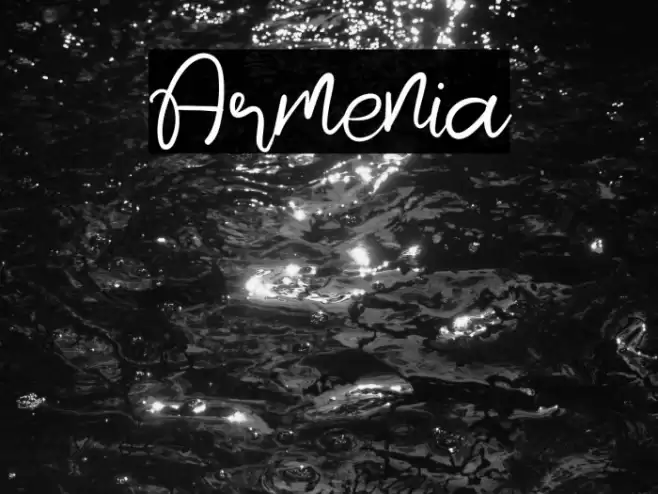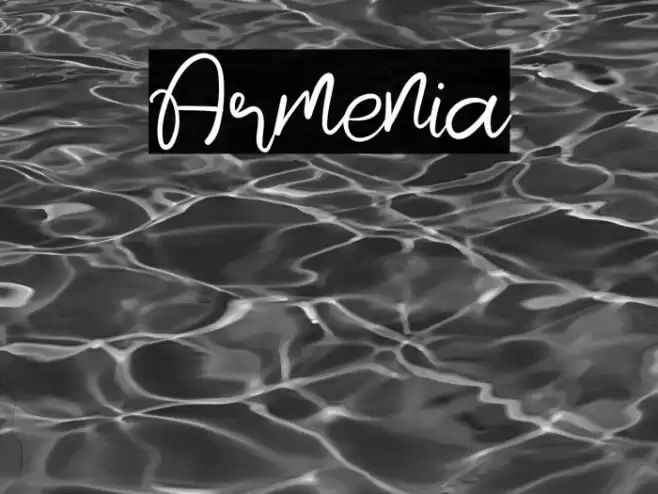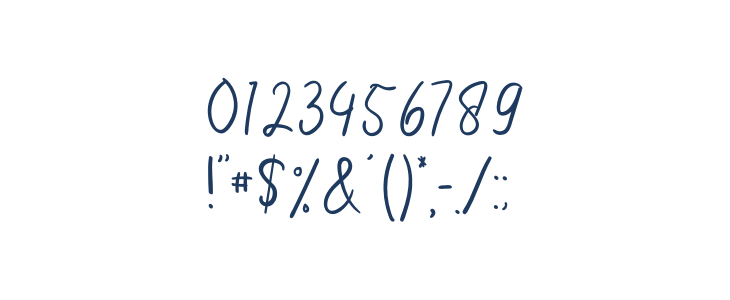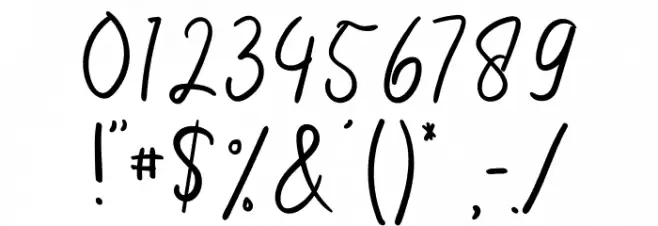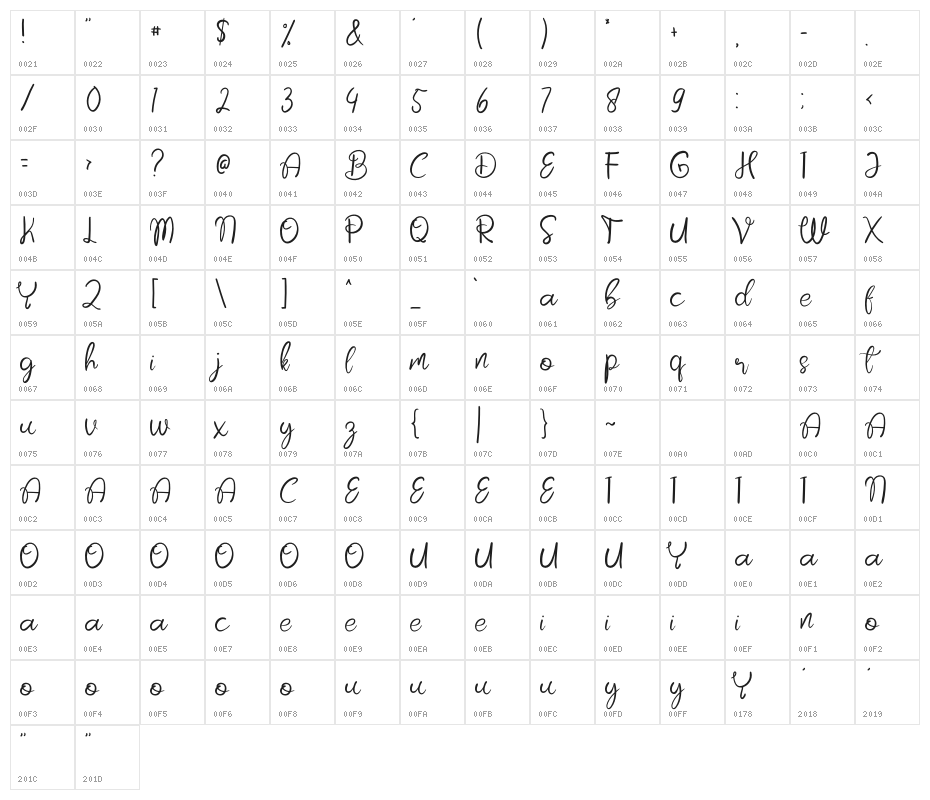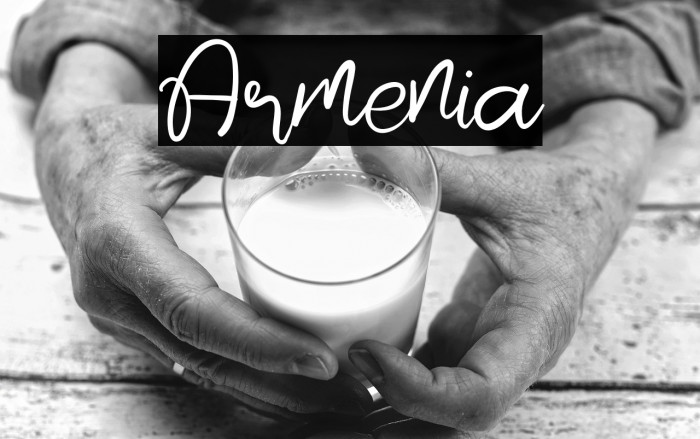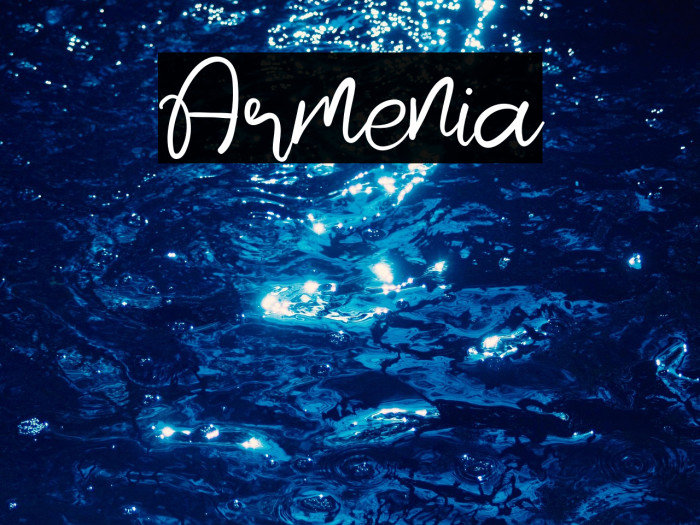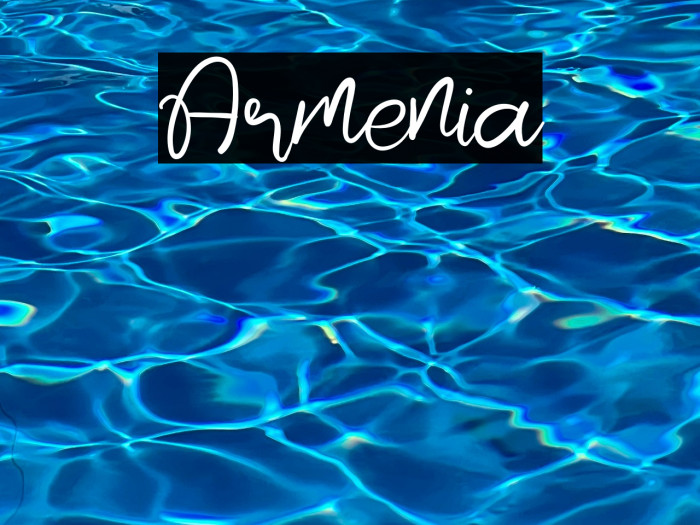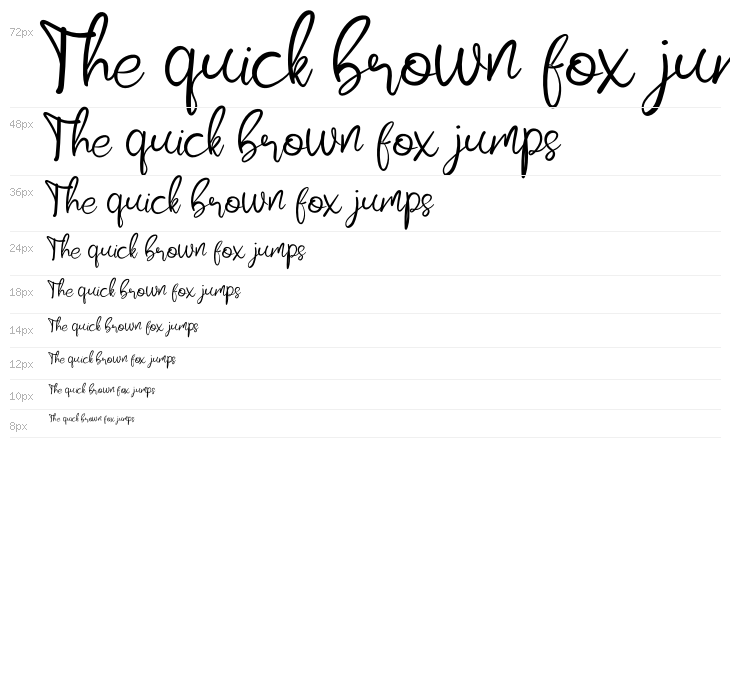
Armenia Font
Armenia Description
This font features a playful and elegant script style, characterized by its flowing and interconnected letterforms. The uppercase letters are tall and slightly narrow, with a whimsical flair that adds a touch of sophistication. The lowercase letters maintain a consistent flow, enhancing readability while retaining a casual elegance. Numbers are clear and distinct, matching the overall style of the alphabet. Special characters are thoughtfully designed, integrating seamlessly with the rest of the font. This font's smooth curves and balanced proportions make it suitable for a variety of creative applications.
A playful and elegant script font with flowing, interconnected letterforms from Regular fonts.